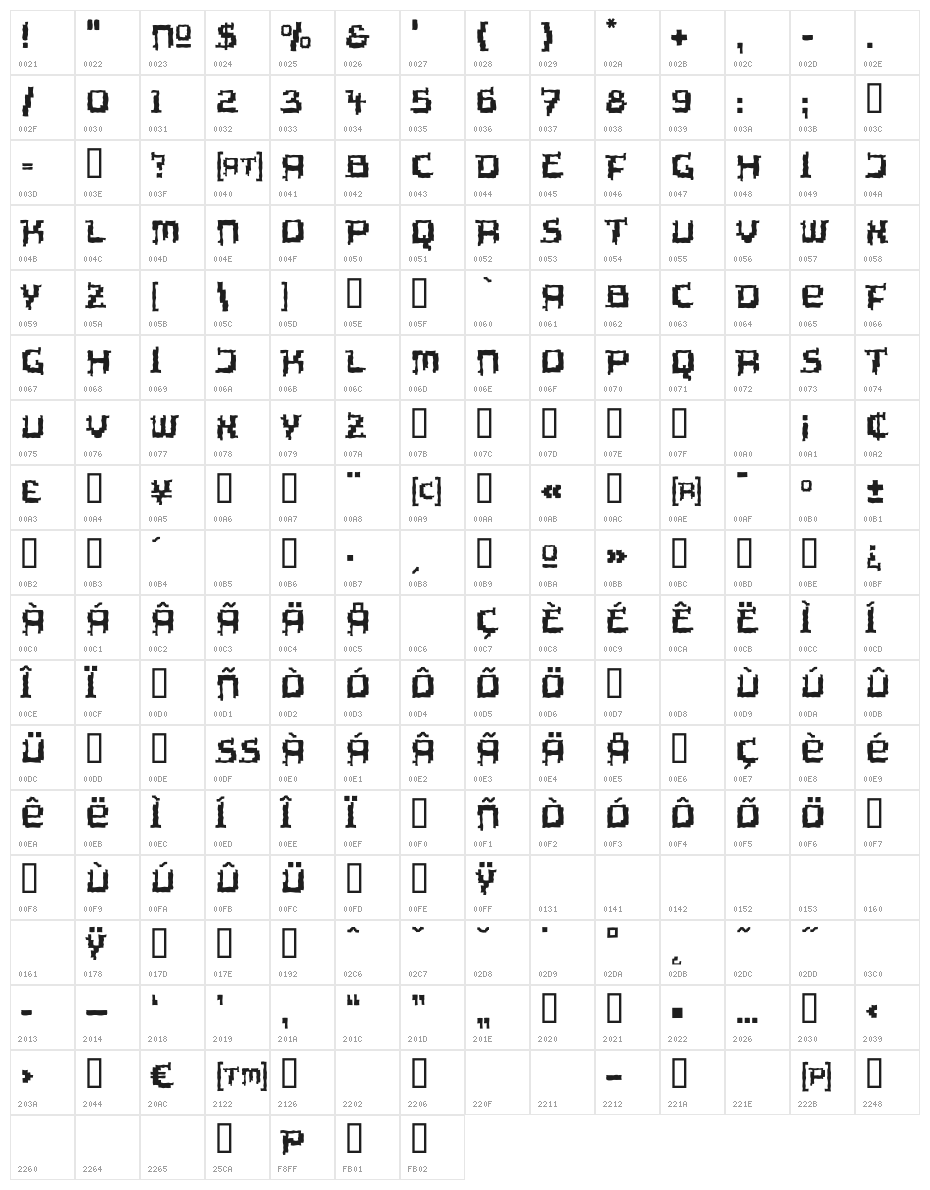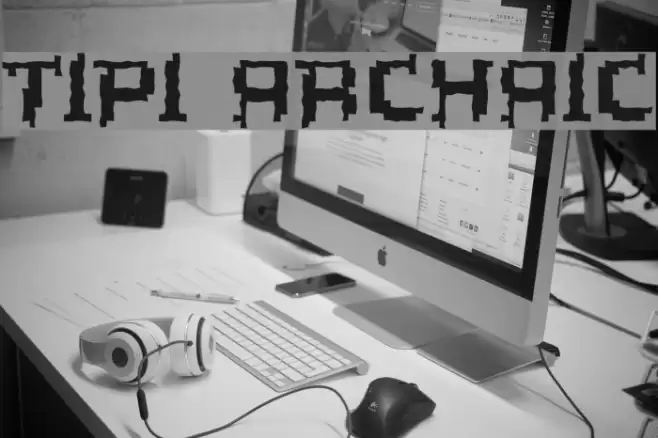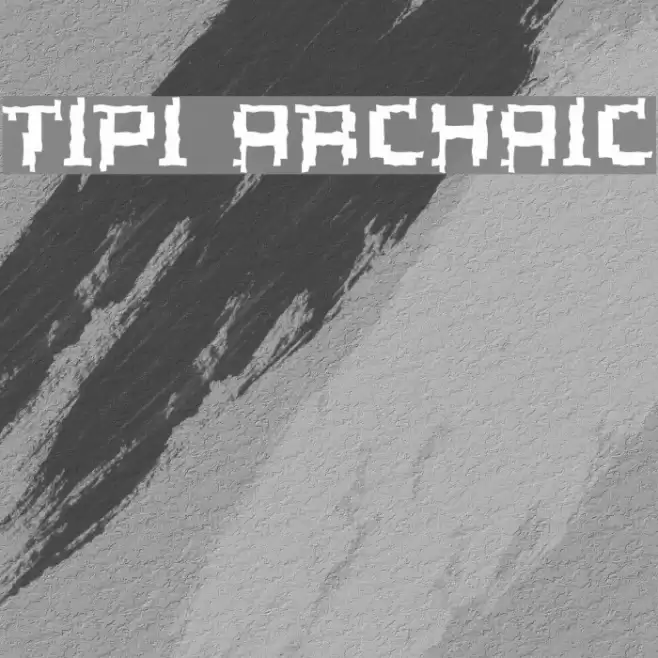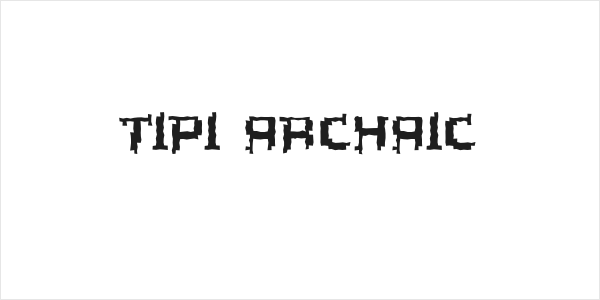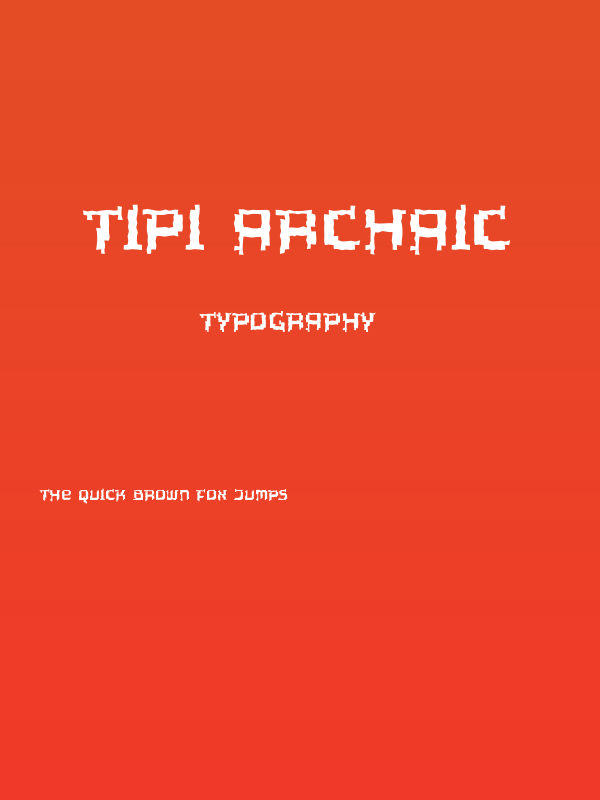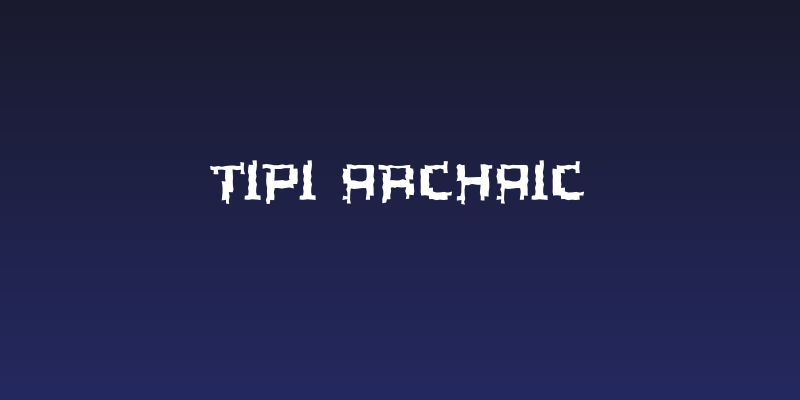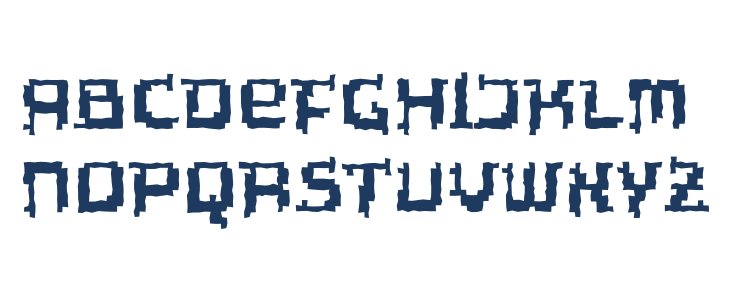
Tipi Archaic Font
Tipi Archaic Description
This font features a rugged, distressed appearance, reminiscent of ancient or primitive carvings. The characters have an irregular, jagged edge that gives them a hand-chiseled look, adding to their archaic charm. The uppercase and lowercase letters maintain a consistent style, with bold, blocky forms that suggest strength and durability. Numbers and special characters follow the same design ethos, ensuring a cohesive visual identity. The font's unique style makes it ideal for projects that require a touch of historical or tribal aesthetics, offering a distinct and memorable visual impact.
| Overall Style | Archaic, Primitive, Rustic |
| Use Case | Headlines, Logos, Themed Designs |
| Proposed Projects | Ideal for themed posters, historical event promotions, tribal-themed designs, or any project needing a rustic, ancient feel. |